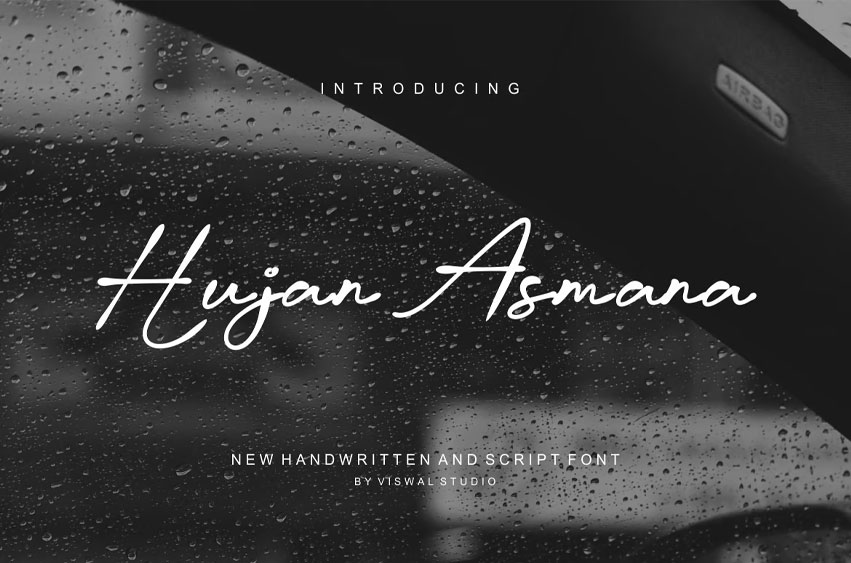
Hujan Asmara Font
Hujan Asmara Font Is A Modern Handwritten Logo Font. It can Make It Easier To Convey The Message In Your Design. Font Is Suitable For Logo, Labels, Badge, Branding, Magazine, Poster, Title, Gigs, Covers, etc.
Our Fonts Have Uppercase & Lowercase, numerals & Punctuation, and Opentype Features. For Amazing Designs, You Can Mix With Other Fonts As A Complement.